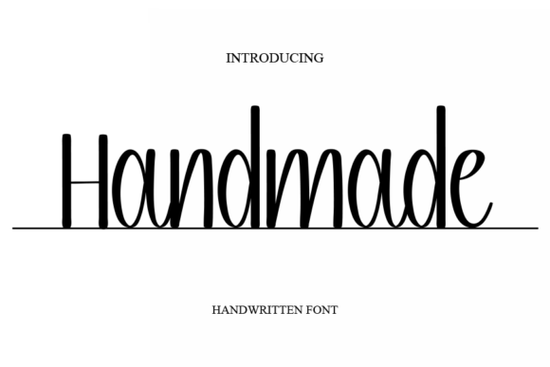
Handmade Font is a versatile and approachable handwritten typeface that brings a personal touch to any project. Whether you're designing for a client, creating handmade crafts, or working on a digital presentation, this font offers a warm and authentic feel that stands out. Its natural, casual style makes it ideal for everything from social media posts to printed materials like greeting cards and banners.
If you're looking for a font that feels like it was written by hand, Handmade Font is a great choice. It’s perfect for those who want to add a human element to their designs without the hassle of actually writing each letter. The font is easy to read while still maintaining a unique character that can elevate your creative work.
For designers and crafters, Handmade Font provides a refreshing alternative to more rigid typefaces. It works well in both digital and print formats, making it a valuable addition to your design toolkit. If you’re running a small business or selling custom products online, this font can help you create a cohesive and professional look that resonates with your audience.
Why choose a handwritten font?
Handwritten fonts like Handmade Font bring a sense of personality and authenticity to your work. They can make your designs feel more relatable and expressive, which is especially important when targeting customers who value creativity and individuality. These fonts are often used in branding, packaging, and marketing materials to convey a friendly and approachable vibe.
When choosing a handwritten font, it's important to consider how it will look in different sizes and contexts. Handmade Font is designed to maintain clarity and legibility at various scales, making it suitable for both large headlines and smaller text blocks. This flexibility ensures that it can be used across multiple platforms and projects without losing its charm.
When selecting a font, it's also helpful to think about the tone and message you want to convey. A bold, energetic font might work well for a dynamic brand, while a softer, more refined style could suit a luxury or artisanal product. Handmade Font strikes a balance between casual and professional, making it a flexible choice for a wide range of applications.
How to use Handmade Font effectively
To get the most out of Handmade Font, consider how it will be used in your projects. For digital designs, it can add a personal touch to websites, logos, or social media graphics. In print, it can enhance the visual appeal of brochures, posters, or business cards. The font works well with other typefaces, so pairing it with a clean sans-serif or serif font can create a balanced and professional look.
When using Handmade Font in a design, keep the layout simple and uncluttered. Too much text in a single font can be overwhelming, so it's best to use it for headings, captions, or short phrases. This approach helps maintain readability while highlighting the font's unique qualities.
For those who are new to using handwritten fonts, experimenting with different sizes and spacing can make a big difference. You may also want to adjust the color or background to ensure the font stands out appropriately. These small tweaks can significantly improve the overall appearance of your work.
If you're looking for more inspiration, you can explore Handmade Font on Creative Fabrica. This platform offers a wide selection of high-quality fonts that cater to different design styles and needs.
As you continue to work with Handmade Font, you'll likely discover new ways to incorporate it into your projects. Whether you're a designer, crafter, or small business owner, this font can add a special touch that sets your work apart.
Before finalizing your design, take a moment to review how the font looks in different formats and sizes. Make sure it aligns with your overall vision and meets the requirements of your project. With a little practice and experimentation, you can master the use of this versatile typeface.
- Try using Handmade Font for headings or short text blocks
- Pair it with a complementary font for a balanced design
- Test the font in different sizes and contexts